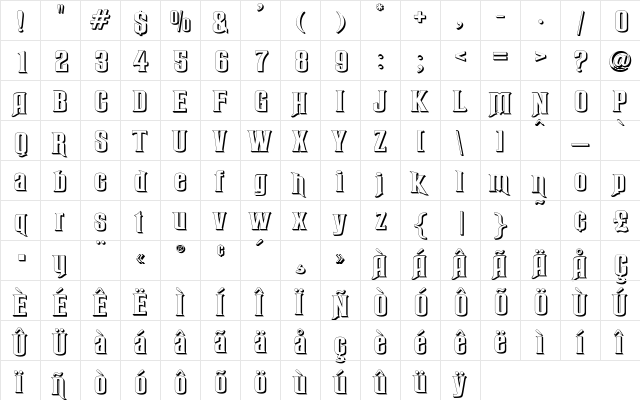
Rubens Perspective Regular
Design Context for Rubens Perspective Typeface
Rubens Perspective is a composed and adaptable typeface that performs quietly and consistently across a wide range of design contexts.